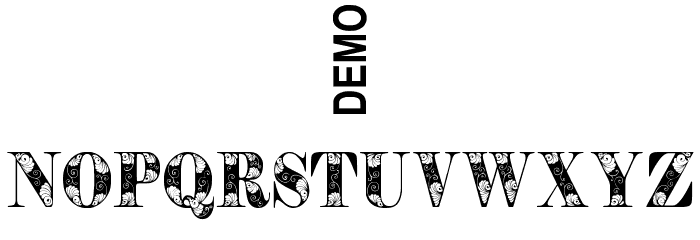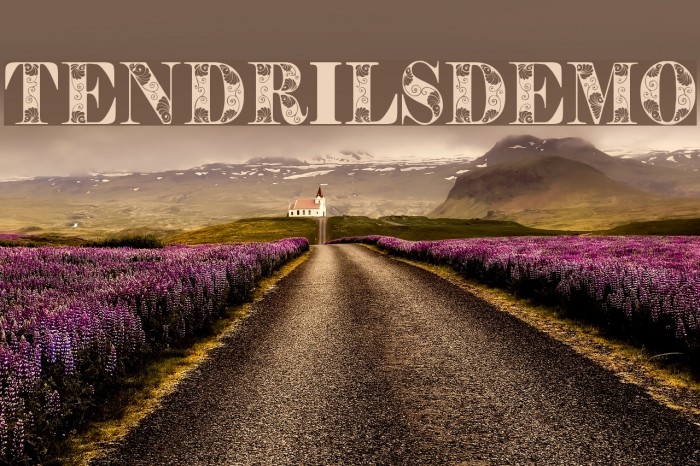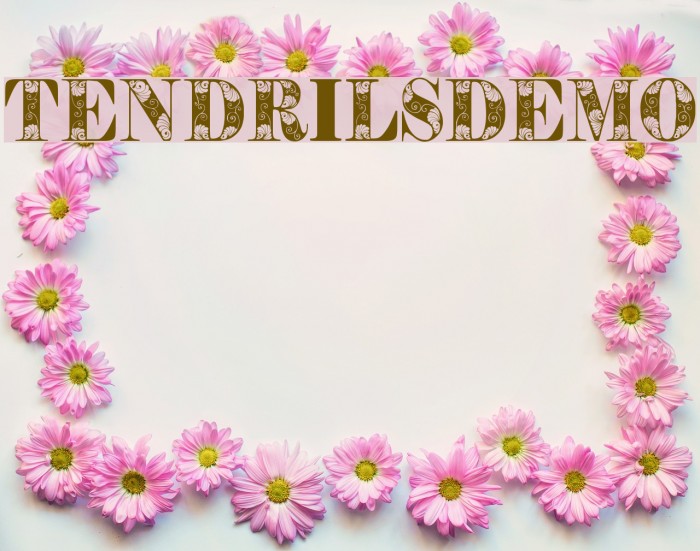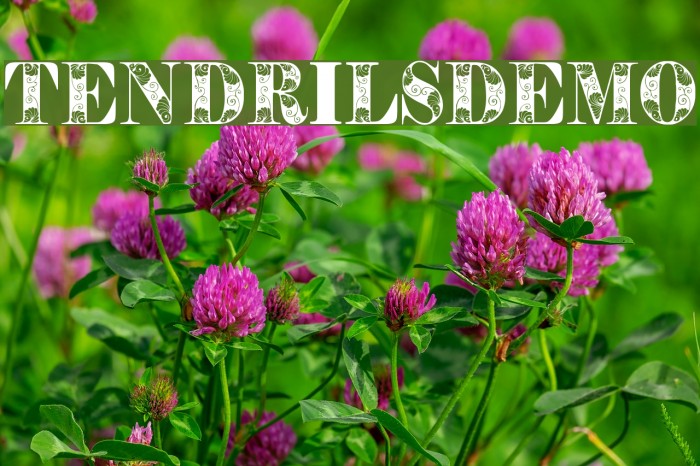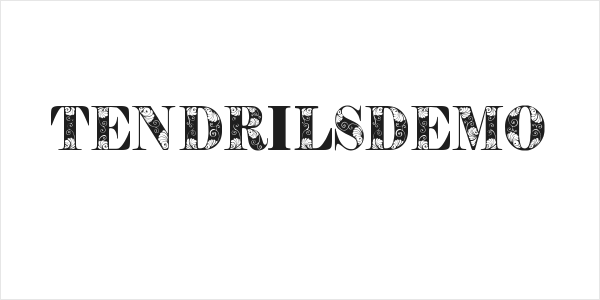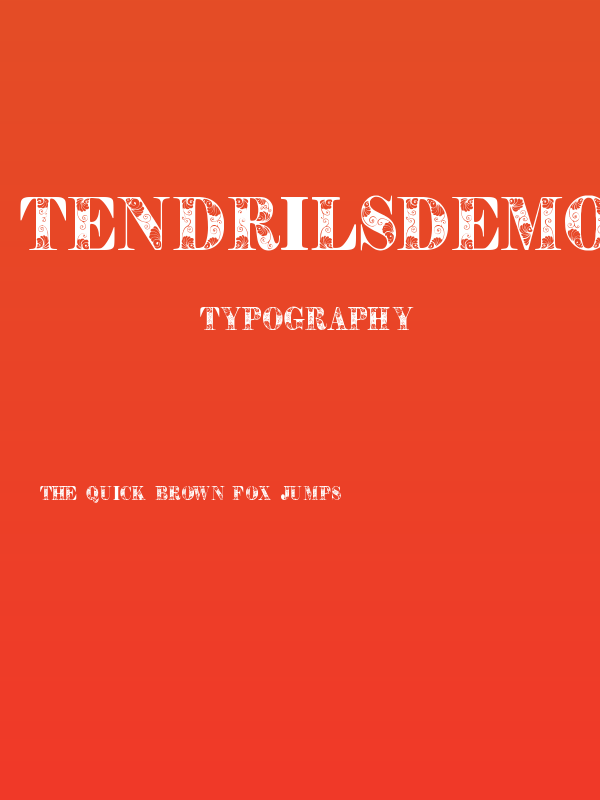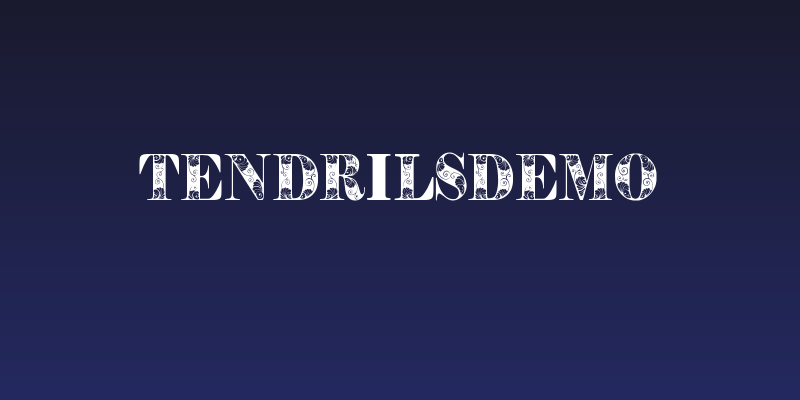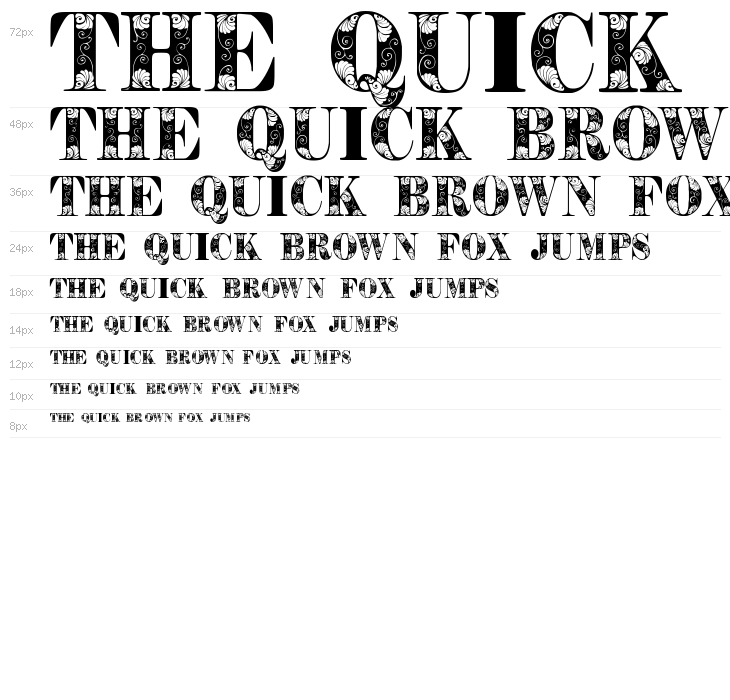
TendrilsDemo Font
TendrilsDemo Description
This font features an intricate and decorative design, with each letter adorned with elaborate tendril-like patterns. The uppercase letters are bold and striking, making a strong visual impact. The ornate detailing within each character adds a sense of elegance and complexity, suitable for artistic and creative projects. The font's unique style is reminiscent of vintage or classical decorative motifs, making it ideal for use in designs that require a touch of sophistication and flair. The boldness of the letters ensures readability while maintaining an artistic appeal.
| Use Case | Headlines, Logos, Artistic projects |
| Proposed Projects | Ideal for wedding invitations, vintage-themed posters, artistic branding, and decorative headings. |